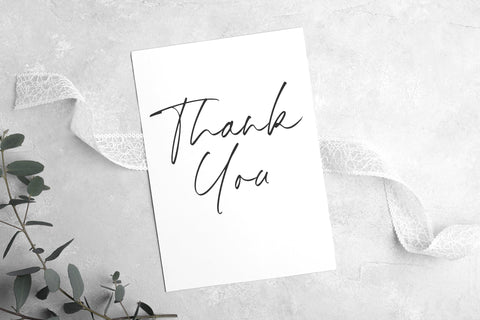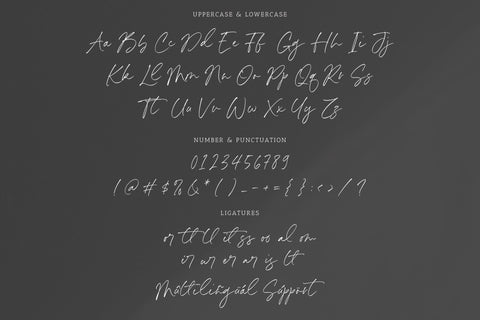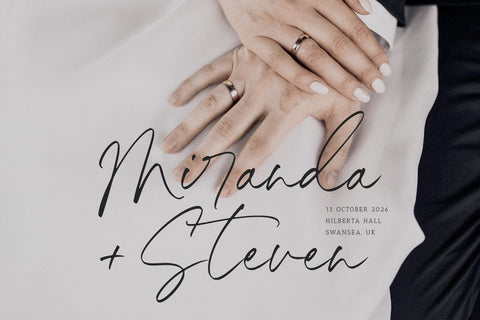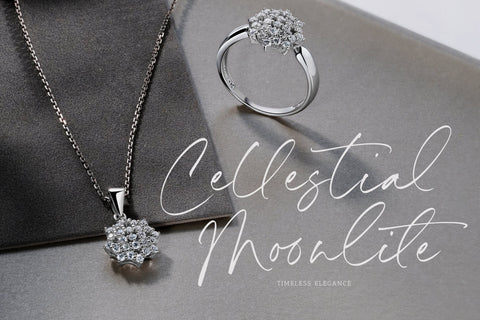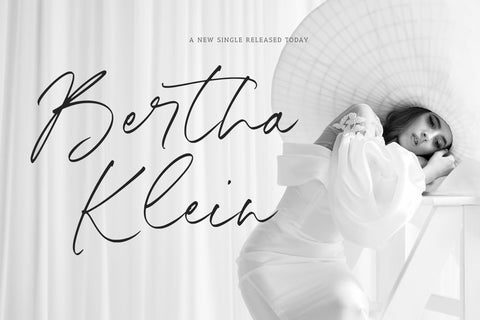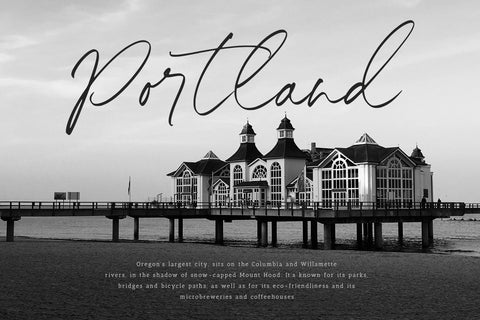
Hamburg Culture – Modern Handwritten Font
Hamburg Culture is a Modern Handwritten Font
This font is a contemporary handwritten font designed to capture the essence of urban creativity. Its flowing strokes and dynamic characters evoke a sense of modernity and sophistication, perfect for projects seeking a blend of elegance and informality. Highlighting its uniqueness are alternate ligatures that add a playful touch, allowing designers to customize and enhance the typography with distinctive flourishes. Whether used in digital media or print, “Hamburg Culture” infuses a sense of artistic flair and versatility, making it ideal for branding, invitations, and editorial designs seeking a fresh.
– Alternate & Ligature
Hamburg Culture also supports multilingualism